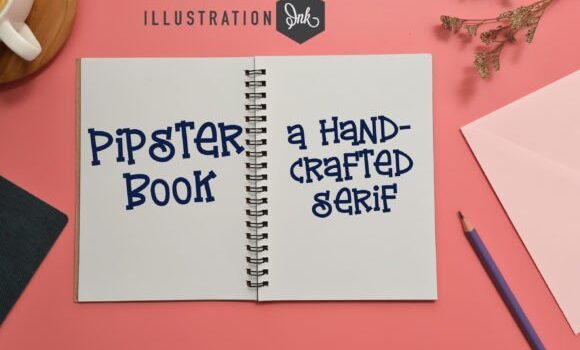
Pipster Font – Free Download Introduction to Pipster Font This hand-crafted, whimsical serif is toggled with a bit of bounce in the baseline. 📸 Preview Gallery 6 images 📌 Product Name Pipster Font 👤 Author Illustration Ink 📂 Category Explore